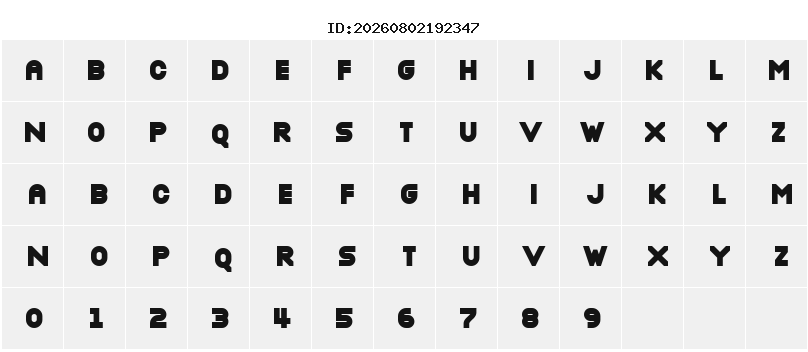
About NottkeBlack.ttf
NottkeBlack.ttf is a modern, elegant sans-serif font designed for ultimate readability and visual harmony. Perfect for branding, headlines, web design, and print materials.